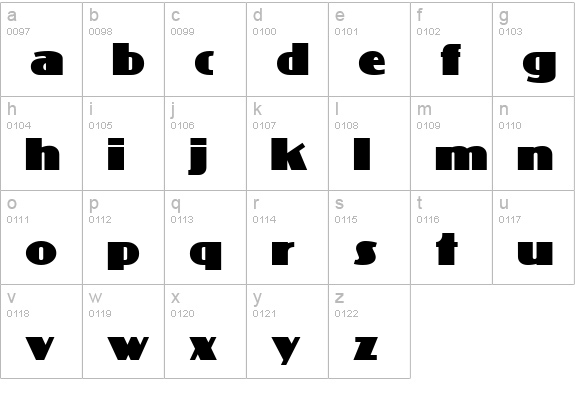
PhattPhreddy Font Details
Introducing PhattPhreddy, a bold and charismatic font that effortlessly captures attention with its distinct style and unique personality. This font is the epitome of creativity, designed to stand out and make a statement in any project or design. PhattPhreddy is not just your ordinary font - it is a free font that offers endless possibilities for those seeking to add a touch of individuality and flair to their work. With its captivating curves and bold strokes, this font exudes confidence and creativity, making it perfect for branding, logos, headlines, and more. What sets PhattPhreddy apart is not just its eye-catching design, but also the fact that it is freely available to download at FontsMarket.com. This means that you can easily access this amazing font without any hassle or additional cost, making it a must-have for designers, creatives, and anyone looking to elevate their projects to the next level. Whether you're working on a professional project or simply looking to add a unique touch to your personal designs, PhattPhreddy is the font that will help you achieve your vision. Its versatility allows it to be used in a variety of settings, from print to digital, and its bold presence ensures that your message will always be heard. So why wait? Download PhattPhreddy today from FontsMarket.com and experience the freedom of creativity that this font brings. Let your imagination run wild and watch as your designs come to life with this incredible, freely available font. Don't miss out on this opportunity to enhance your work and make a lasting impression.